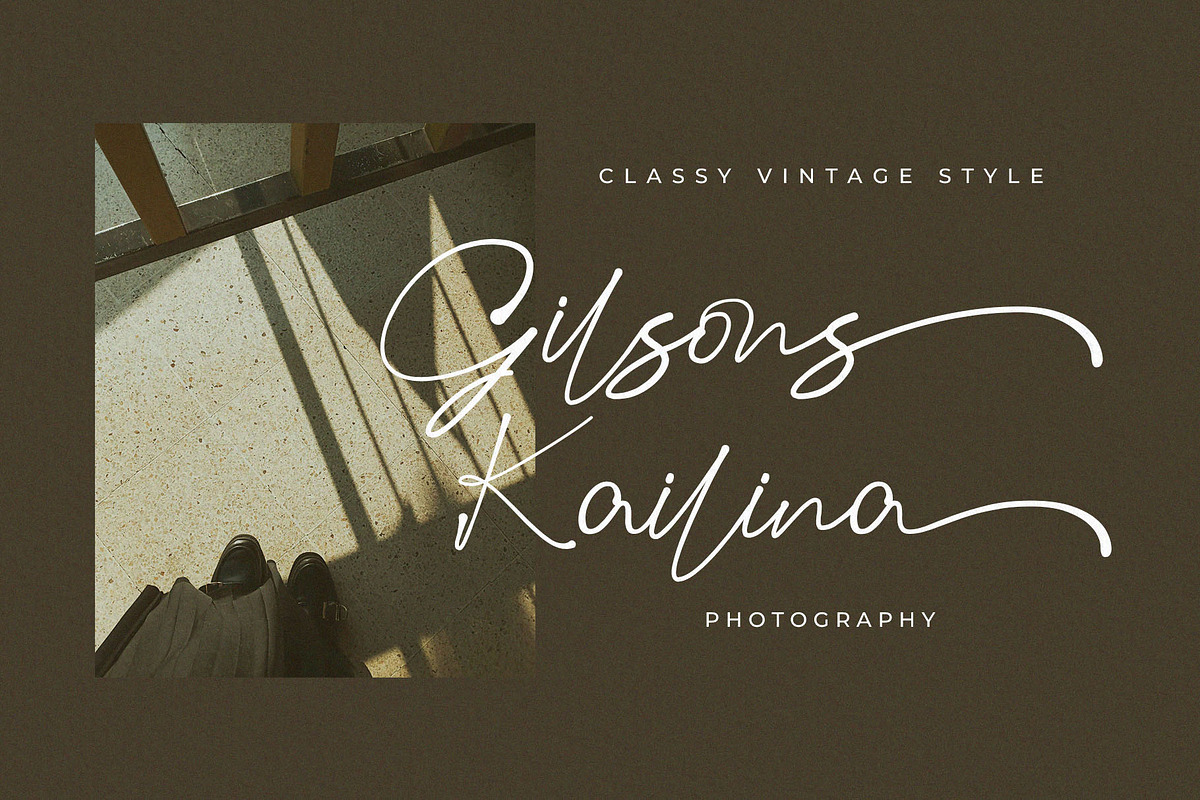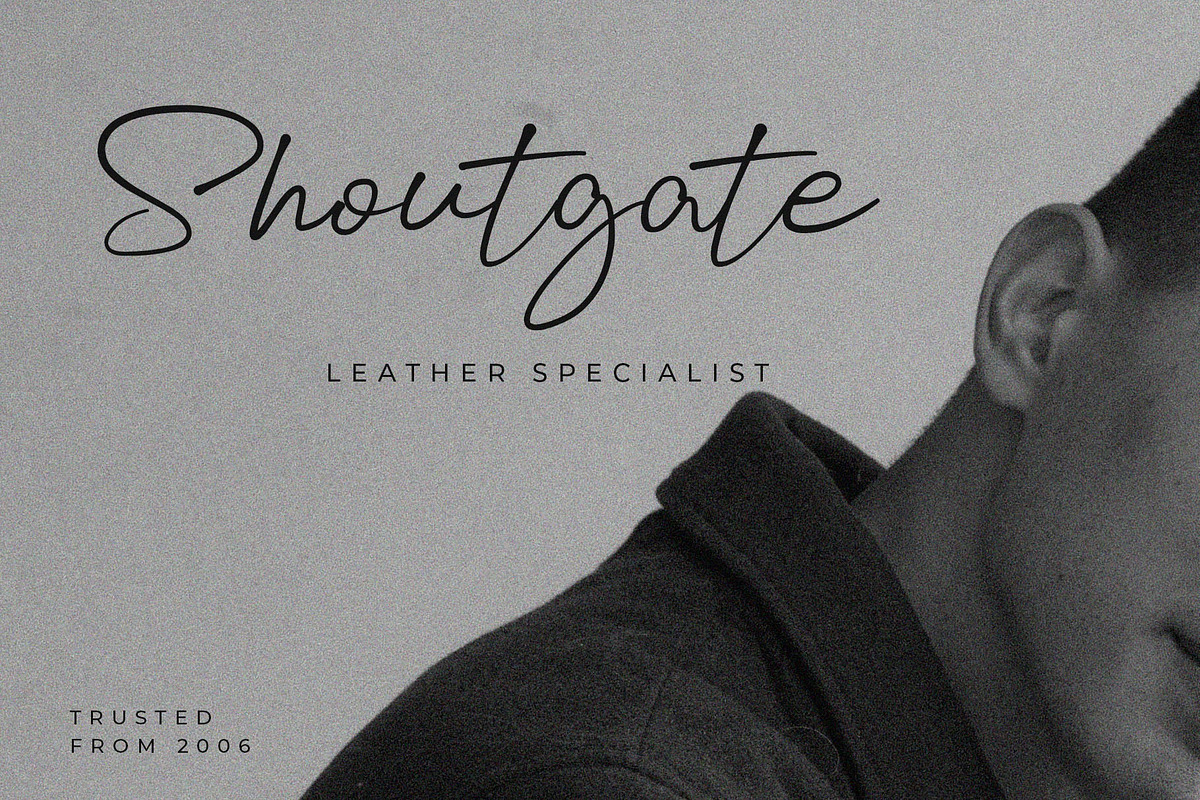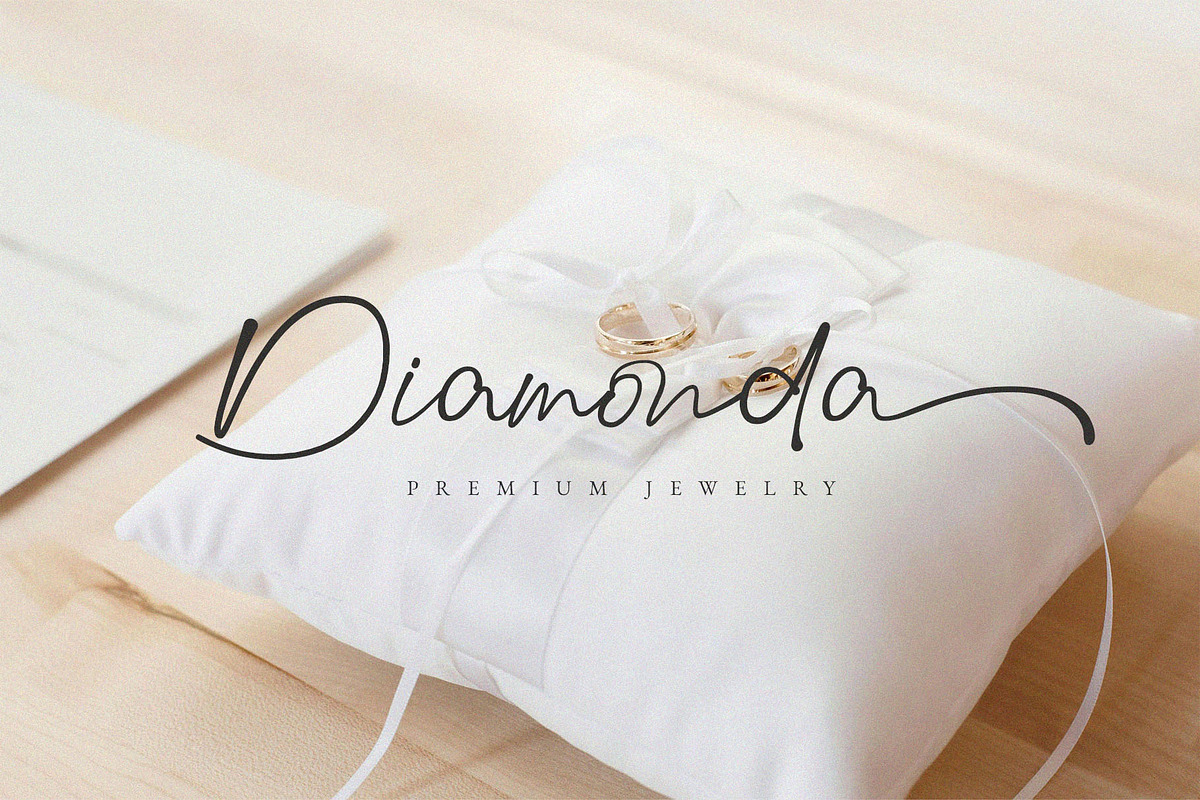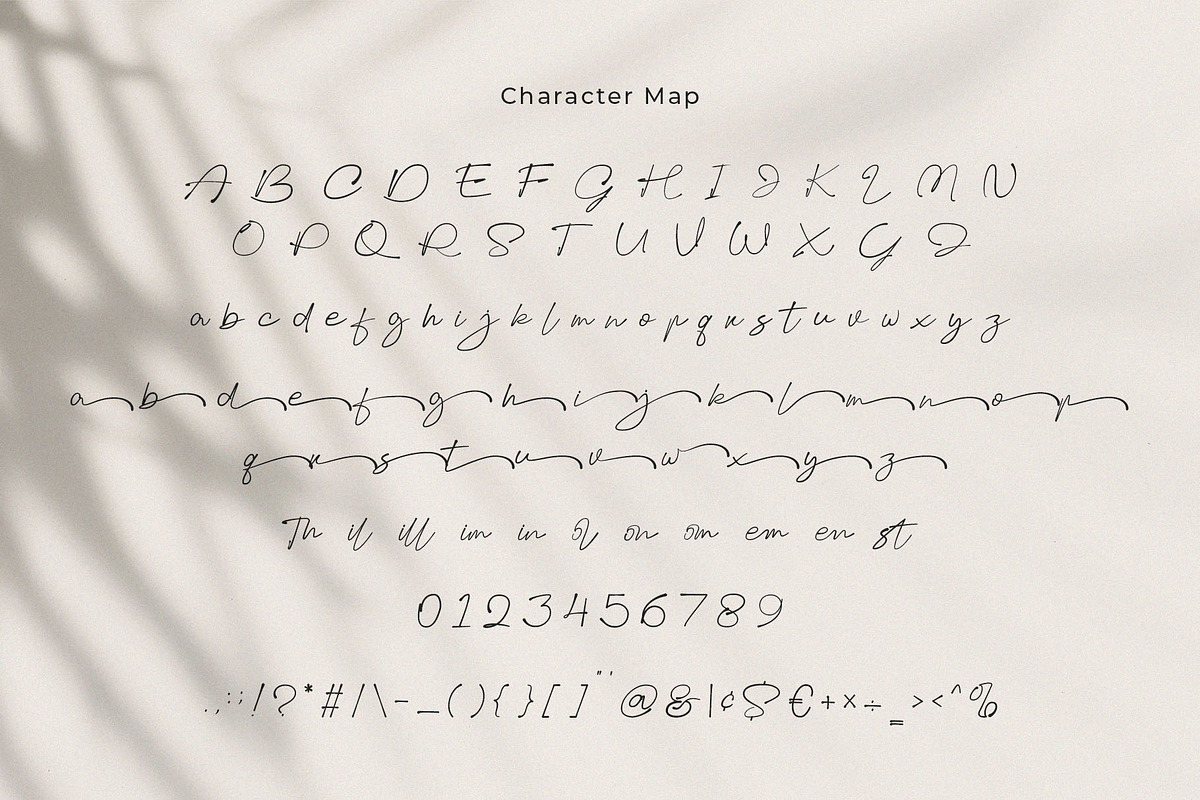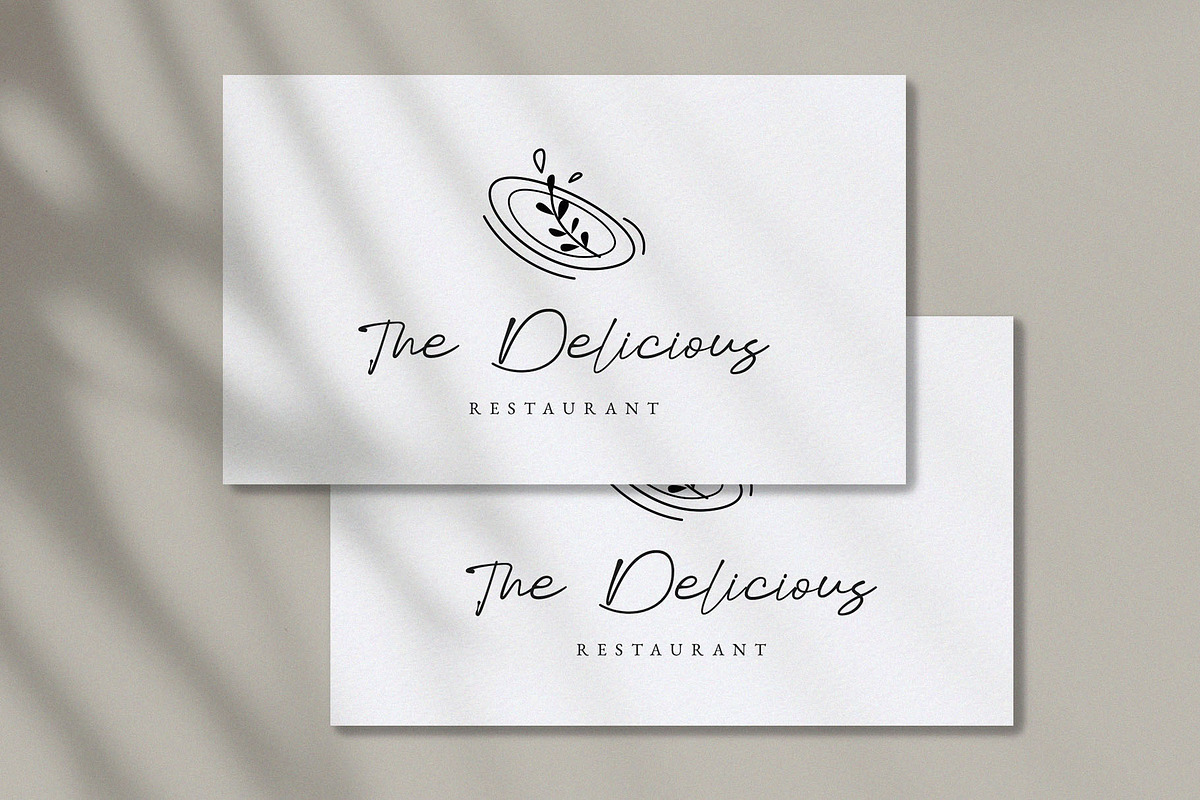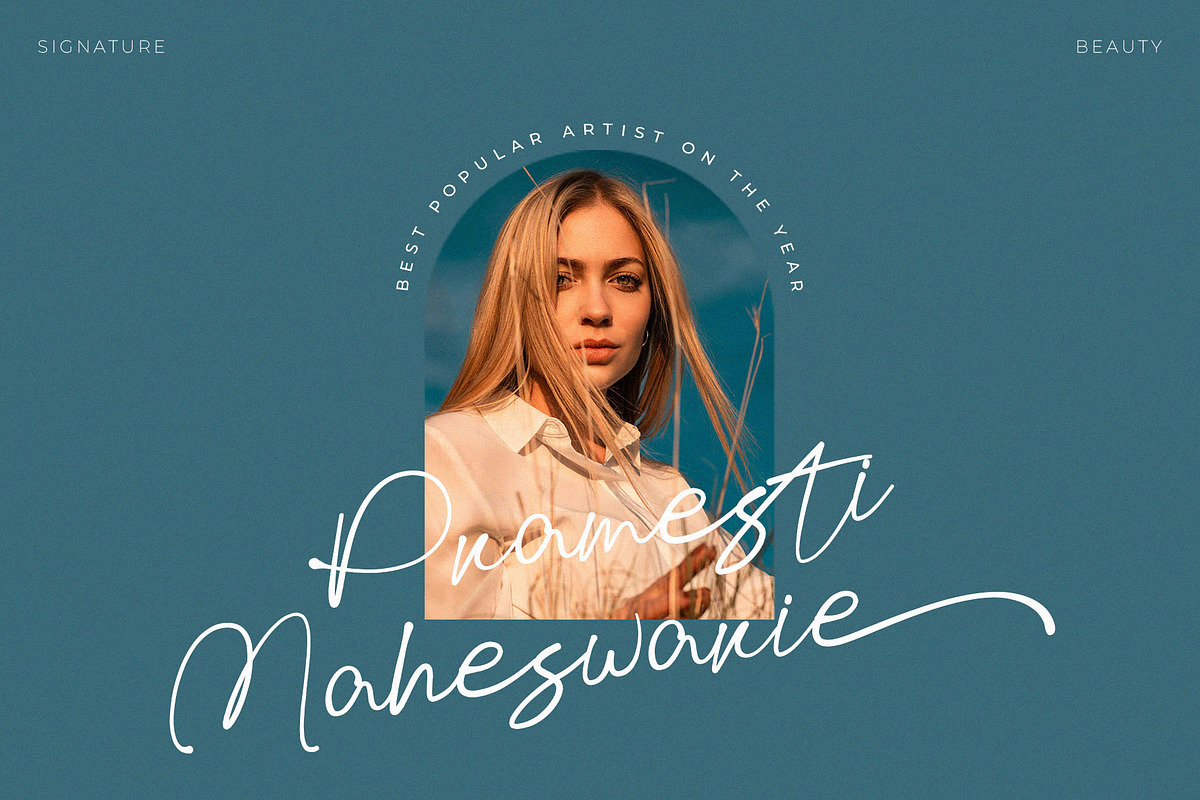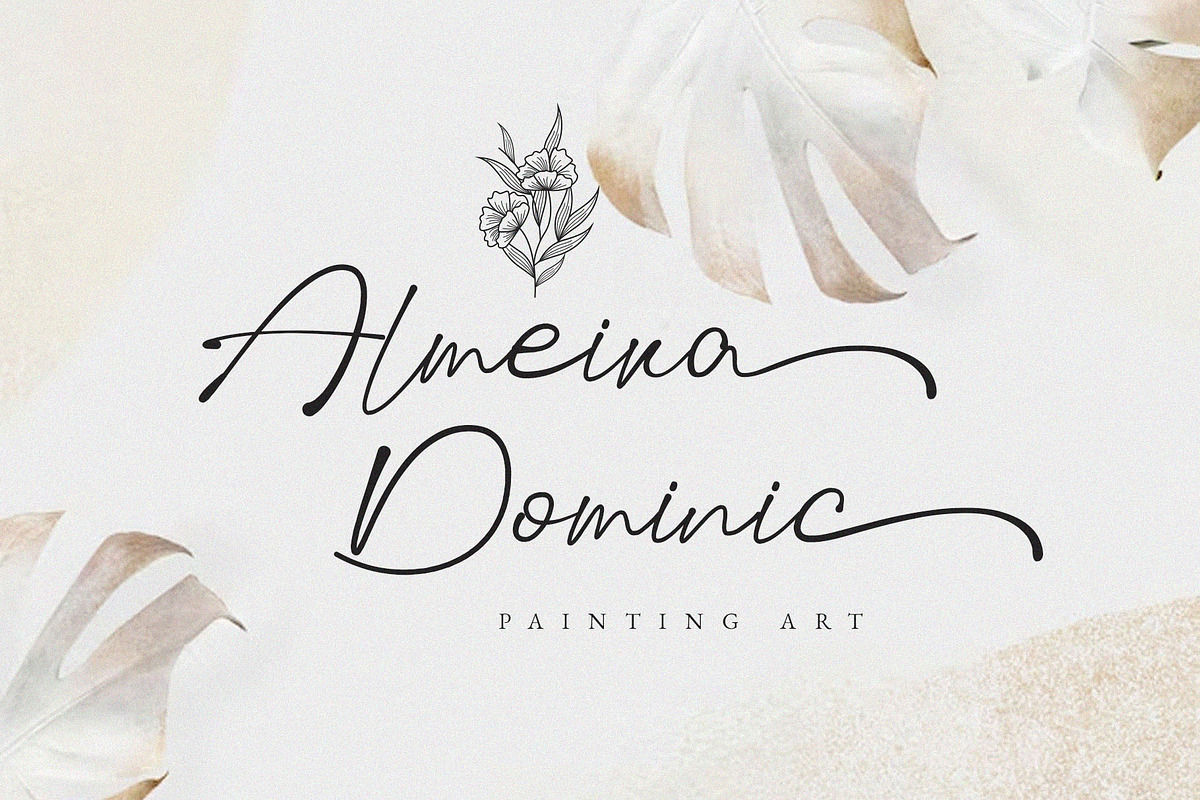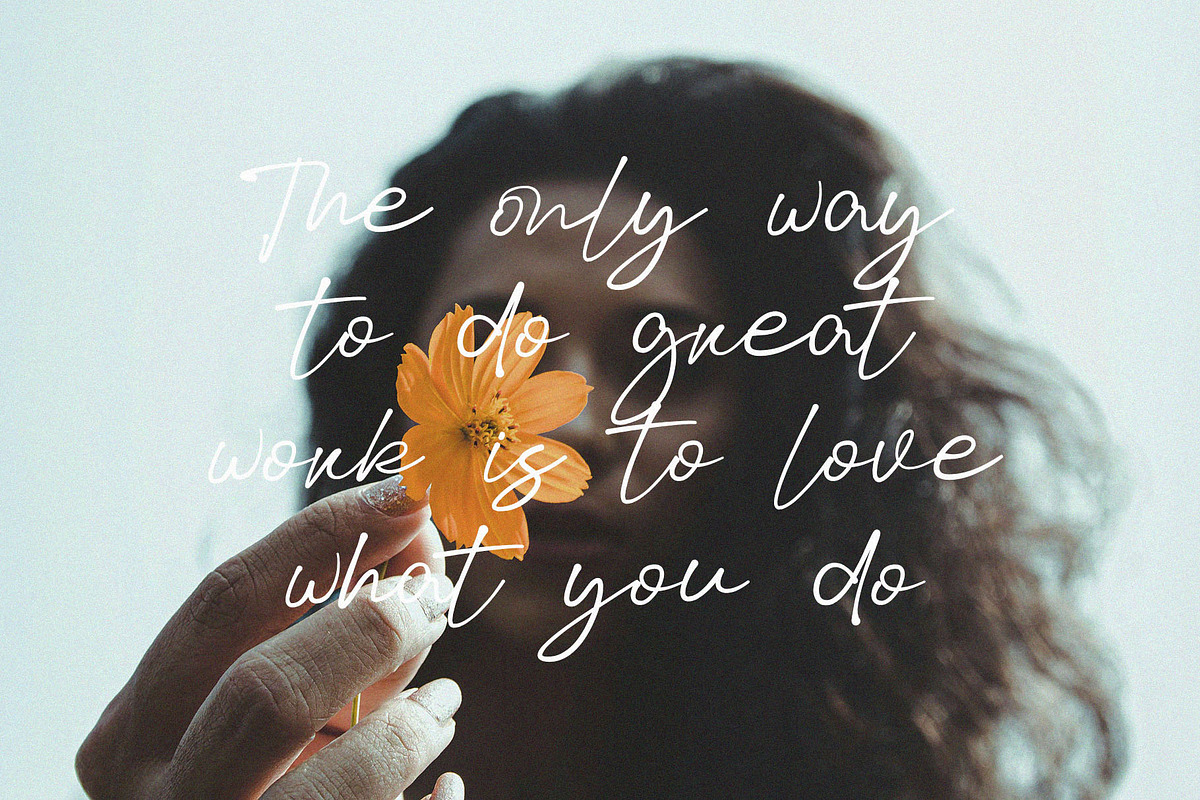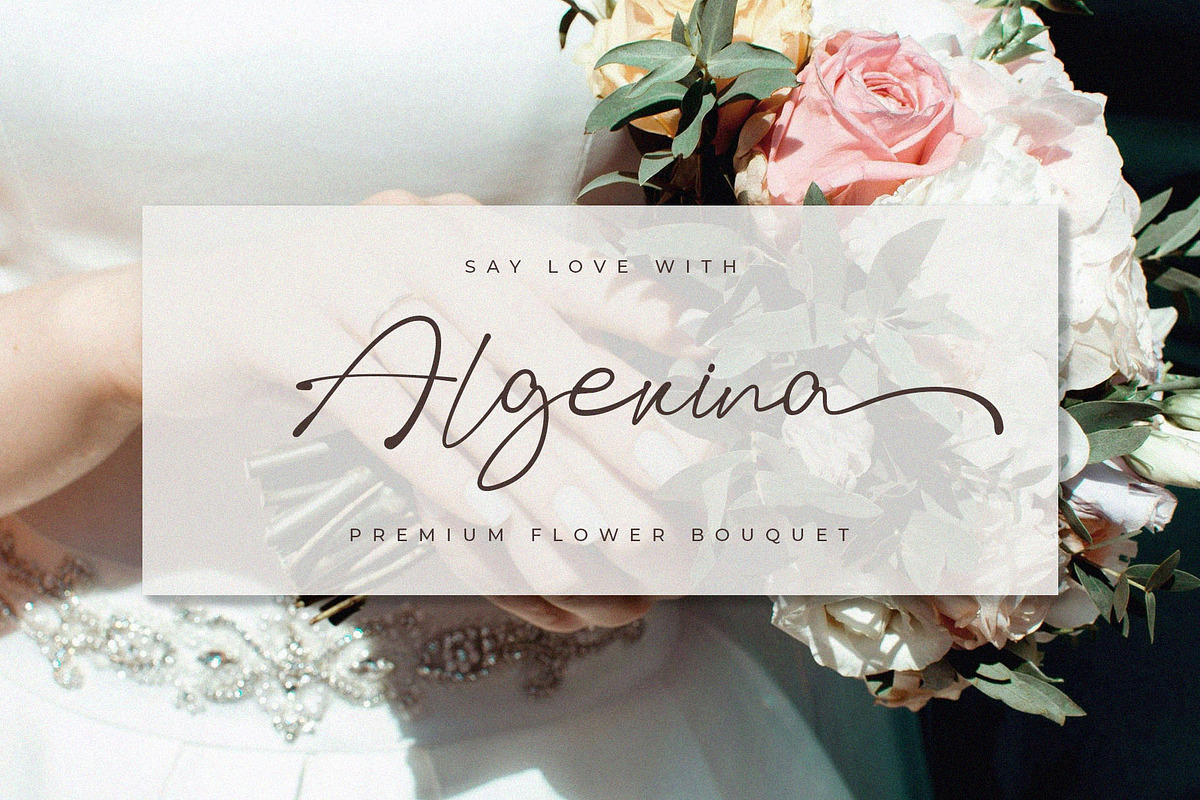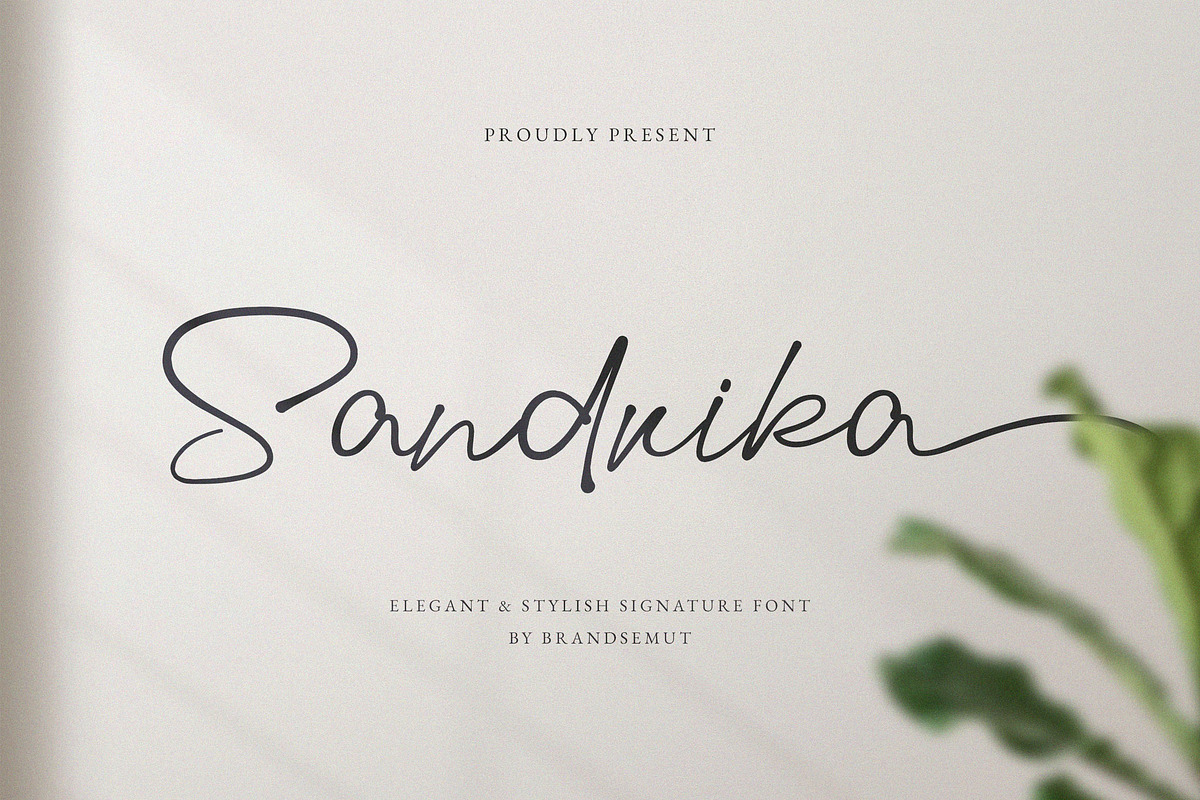
Sandrika – Elegant & Stylish Signatu
Introducing the new Sandrika Signature Font is a elegant and stylish handwritten script, that you can use to perfect your design. You will get full set of lowercase and uppercase letters, multilingual, numerals and punctuation.